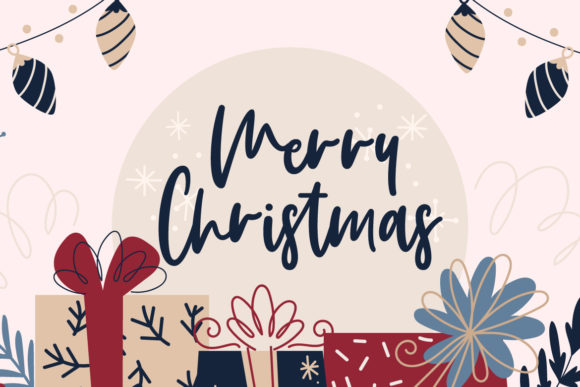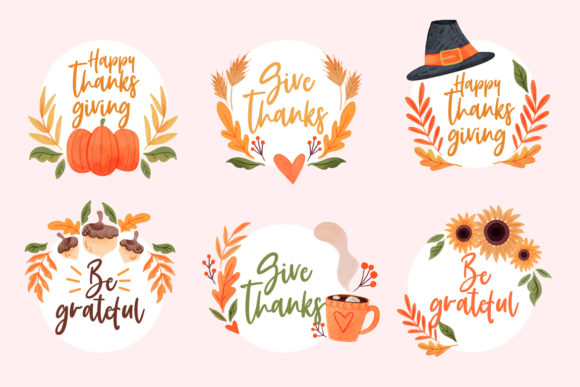
Innocent Girl Font
db-ku.com - Script & Handwritten -- Innocent Girl is a beautiful and elegant script font. Fall in love with its authentic feel and use it to create gorgeous wedding invitations, beautiful stationary art, eye-catching social media posts, and cute greeting cards.